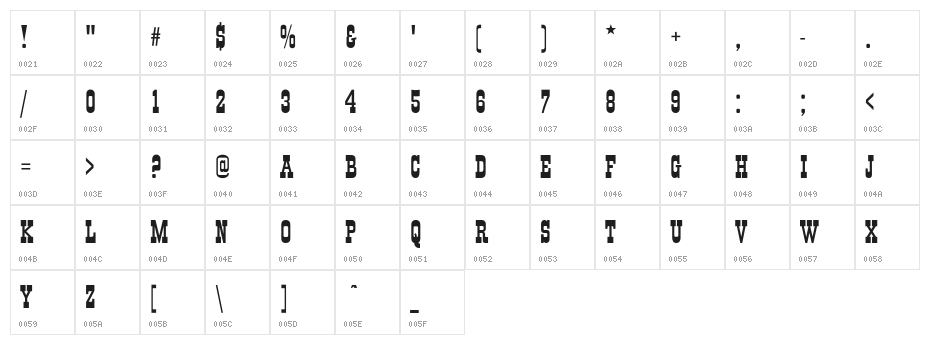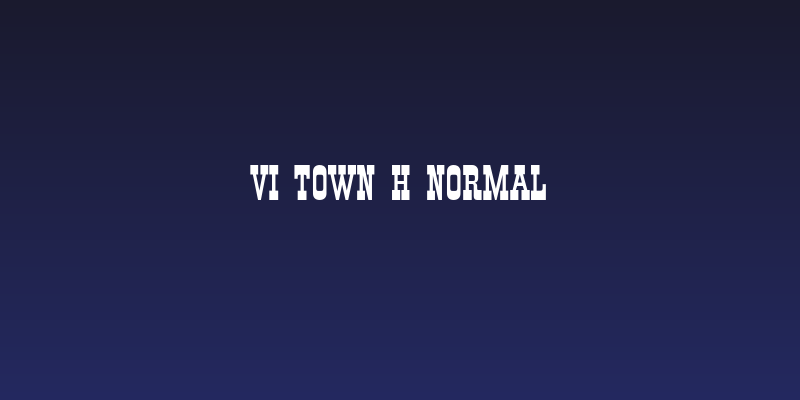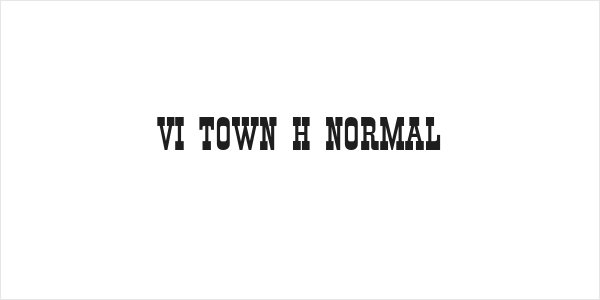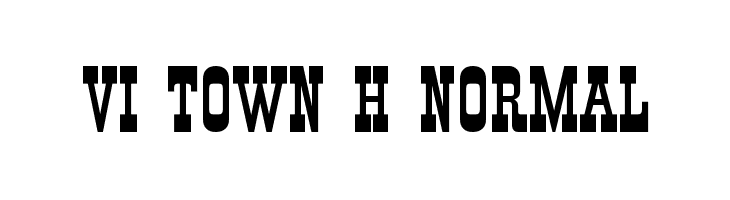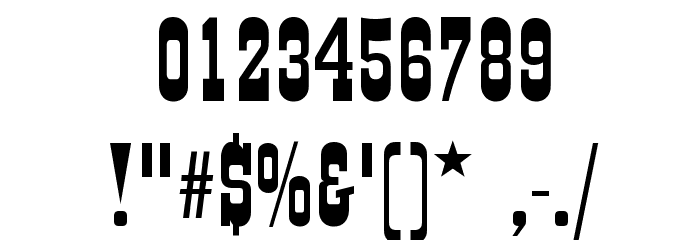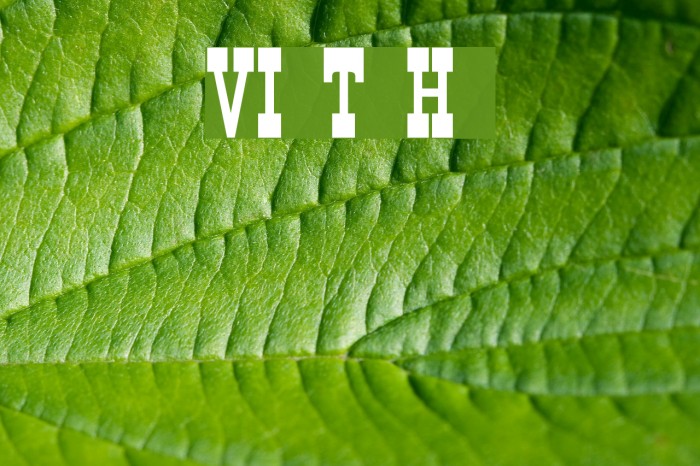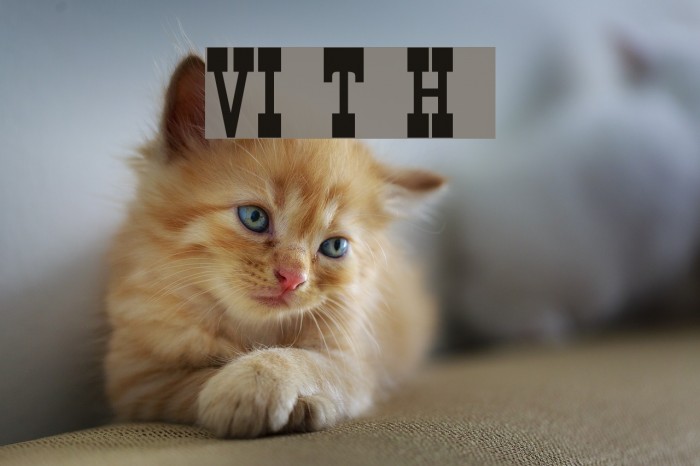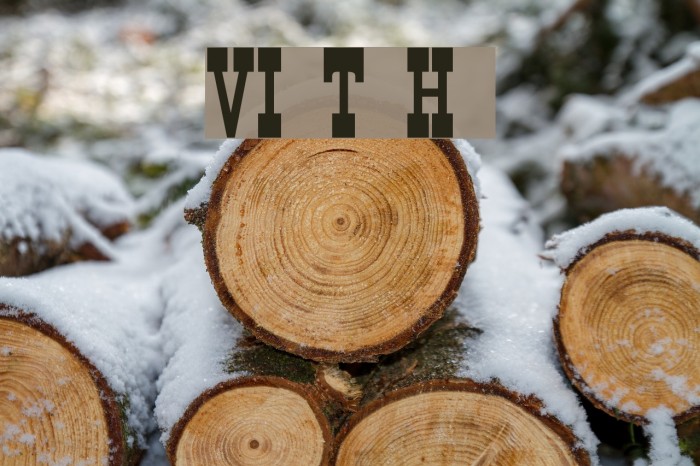
VI Town H normal Font
VI Town H normal Description
This font features bold, blocky characters with a strong presence, ideal for making a statement. The uppercase letters are particularly striking, with thick strokes and a slab serif style that gives them a robust and authoritative look. The numbers and special characters maintain this boldness, ensuring consistency across all glyphs. The font's design is reminiscent of vintage Western typography, often seen in old signage or posters, which adds a nostalgic charm. Its high contrast in stroke thickness enhances readability, making it suitable for various display purposes.
| Overall Style | Vintage |
| Proposed Projects | Ideal for posters, signage, branding, and any project requiring a strong, vintage aesthetic. |